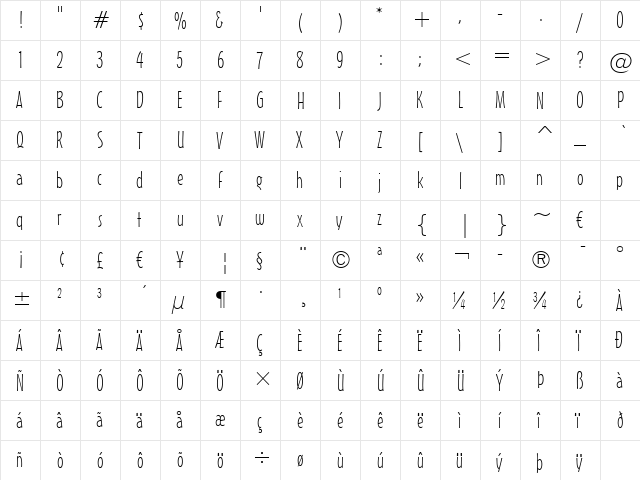
MisterEarl XLt BT Extra Light
Design Context for MisterEarl XLt BT Typeface
MisterEarl XLt BT takes a measured approach to typography — its balanced proportions and neutral character make it a reliable workhorse for both digital and print work. Its slender proportions lend an understated elegance to any composition.